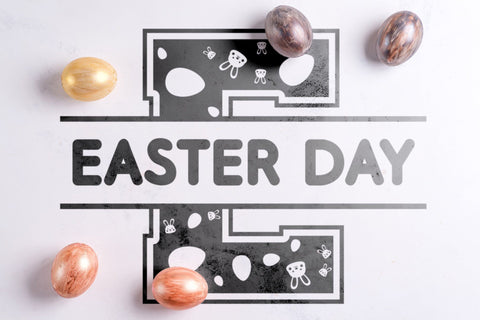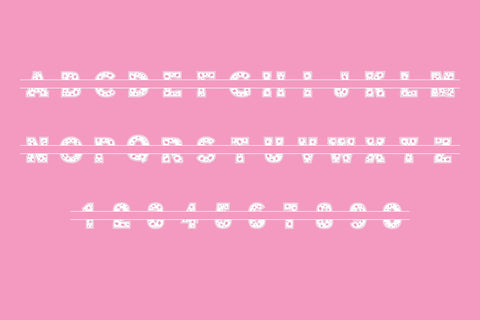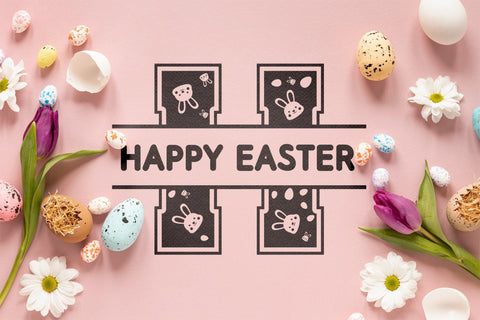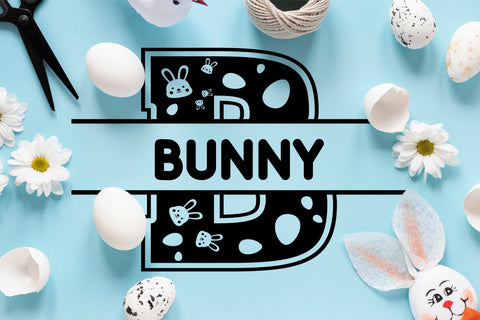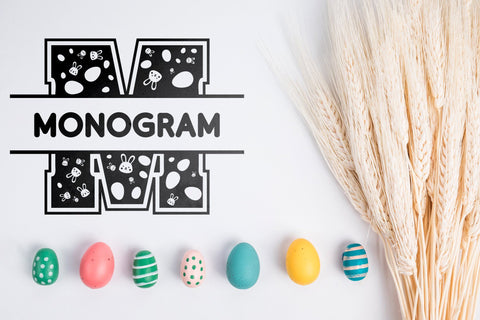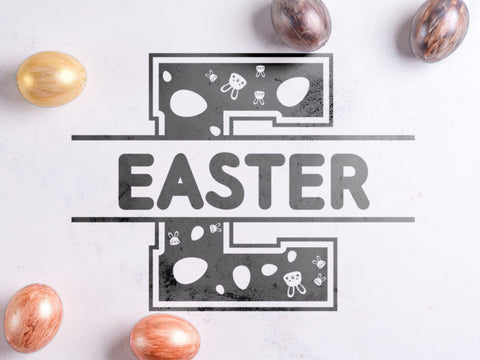
Easter Split Monogram Font
Easter Split Monogram Font.
Make your designs stand out with Easter Monogram, a stylish and unique decorative font. It will look stunning on posters, thank you cards, quotes, greeting cards, logos, business cards and every other design which needs a creative touch.